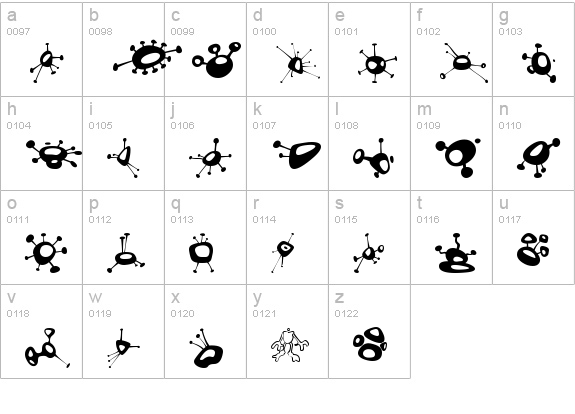
AlienMushrooms Font Details
AlienMushrooms font is a whimsical and otherworldly typeface that will transport you to a mysterious and fantastical realm. With its unique, alien-inspired design, this font is perfect for adding a touch of magic and wonder to your projects. The quirky shapes and intricate details of AlienMushrooms will captivate your audience and make your text stand out. Best of all, AlienMushrooms font is completely free to download at FontsMarket.com, allowing you to unleash your creativity without any cost. Whether you're designing a poster, creating a logo, or crafting a digital masterpiece, AlienMushrooms font is sure to add a touch of enchantment to your work. Embrace the unknown and let AlienMushrooms font take your designs to new heights. Download it now and let your imagination soar.